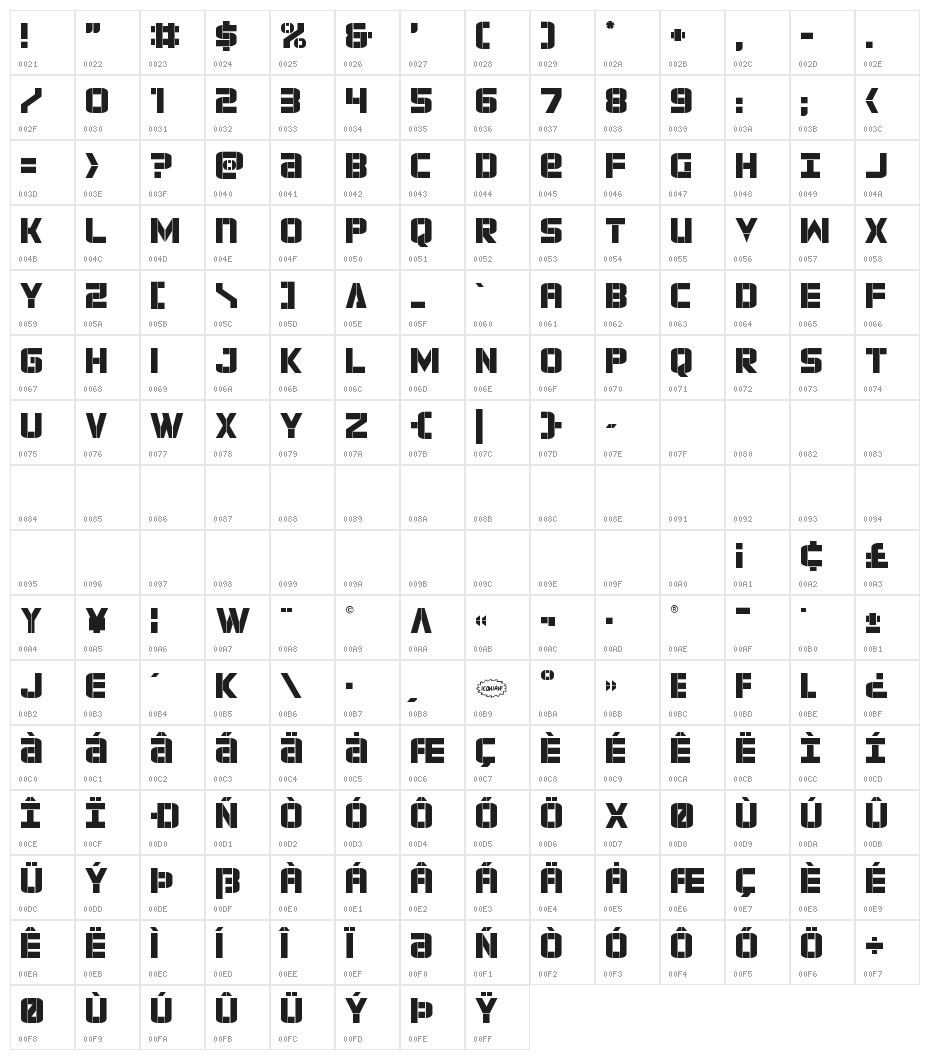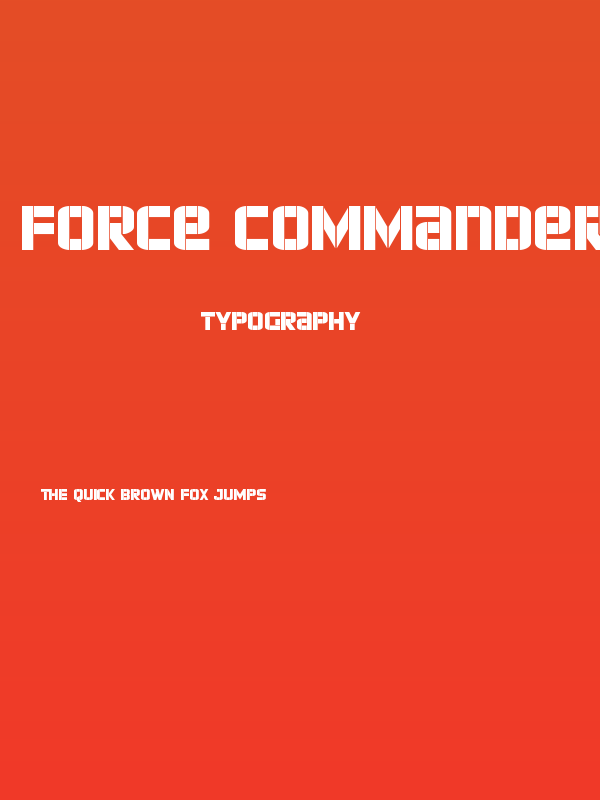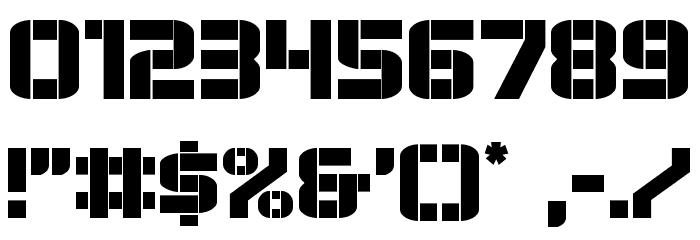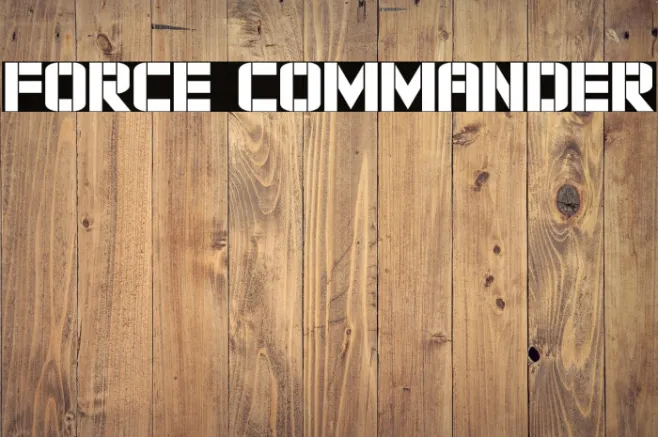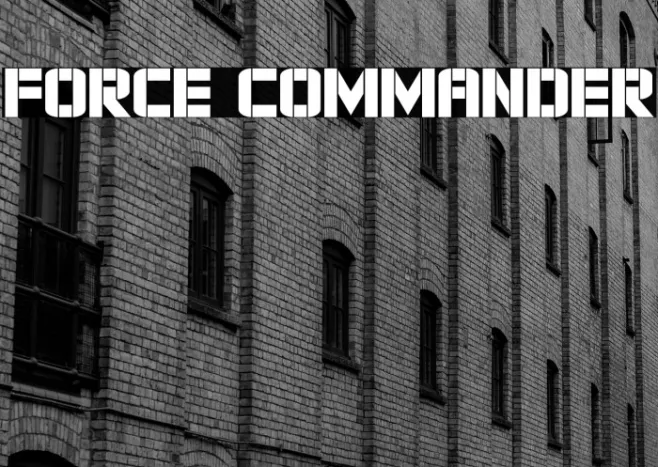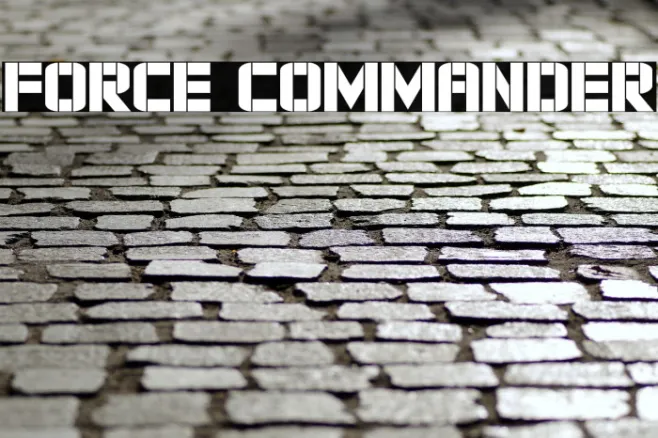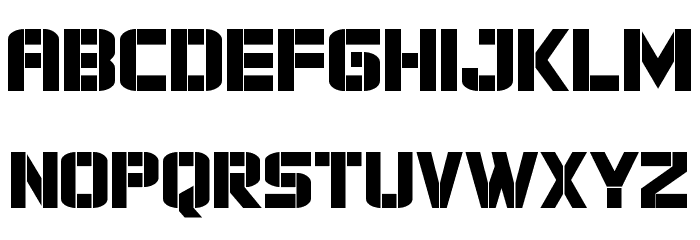
Force Commander Font
Force Commander Description
This font features a bold, geometric design with a strong, futuristic aesthetic. The characters are constructed with solid, block-like shapes that give them a commanding presence. Each letter and number is crafted with precision, incorporating angular cuts and sharp edges that enhance its modern appeal. The font's unique style is reminiscent of digital displays or military stencils, making it ideal for projects that require a robust and impactful visual statement. The consistent thickness of the strokes and the uniformity in character height contribute to its cohesive and structured appearance.
| Proposed Projects | Ideal for sci-fi themed posters, video game titles, branding for tech companies, or any project needing a strong, modern aesthetic. |